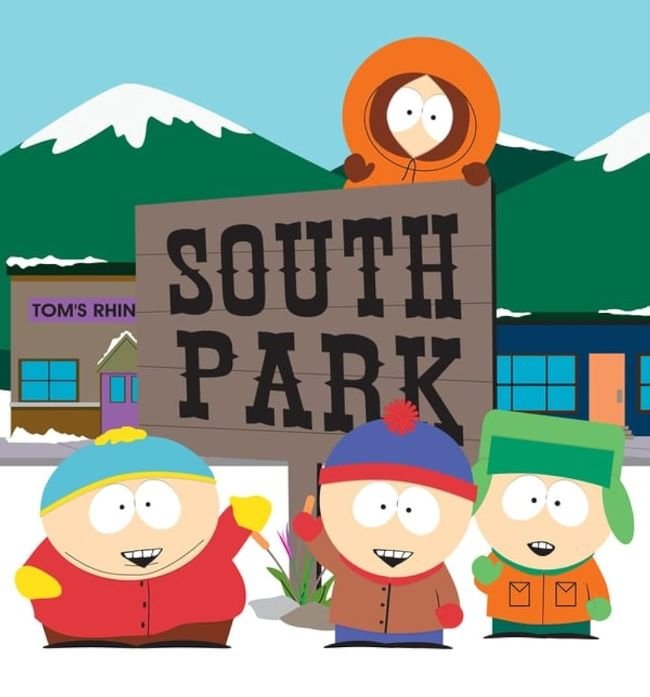
South Park font is the typography of a kid who has been given a crayon and told to write the title of their favourite TV show, then transferred wholesale onto a Comedy Central series that has been satirising American culture with anarchic precision since 1997 — and the genius is that the latter is exactly what it looks like while also being a carefully sustained creative decision maintained across nearly thirty seasons.
Trey Parker and Matt Stone’s animated series needed title lettering that could credibly claim to have been produced by the elementary school children at its centre, and the wonky, uneven, enthusiastically imperfect hand-lettering delivers that fiction with such commitment that it becomes its own kind of sophistication.
The freely available South Park Font brings this masterfully crude aesthetic to creative projects.